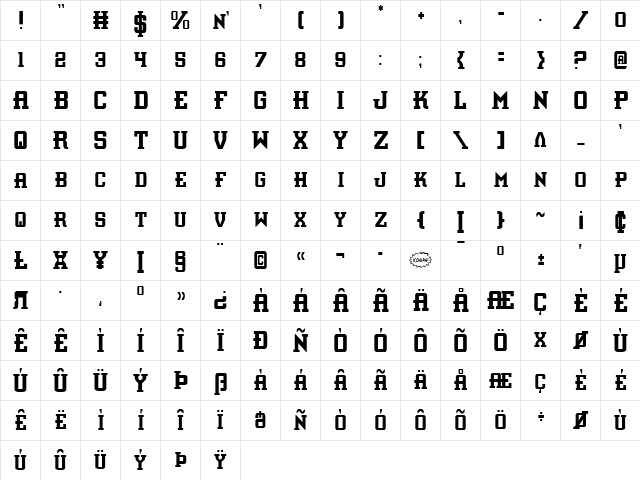
Interceptor Condensed Condensed
Design Context for Interceptor Condensed Typeface
Interceptor Condensed takes a measured approach to typography — its balanced proportions and neutral character make it a reliable workhorse for both digital and print work. The condensed width makes it efficient for tight spaces without sacrificing legibility.